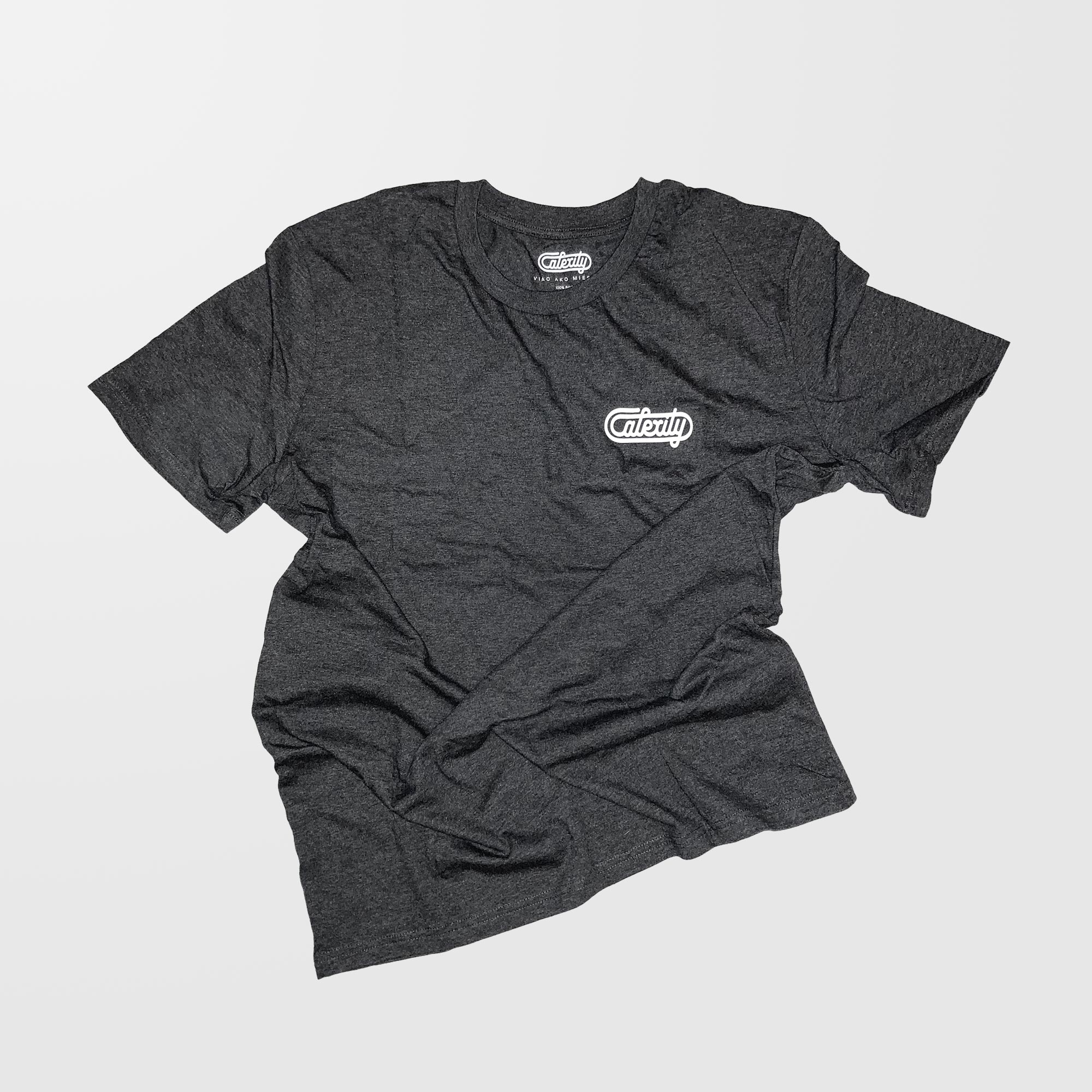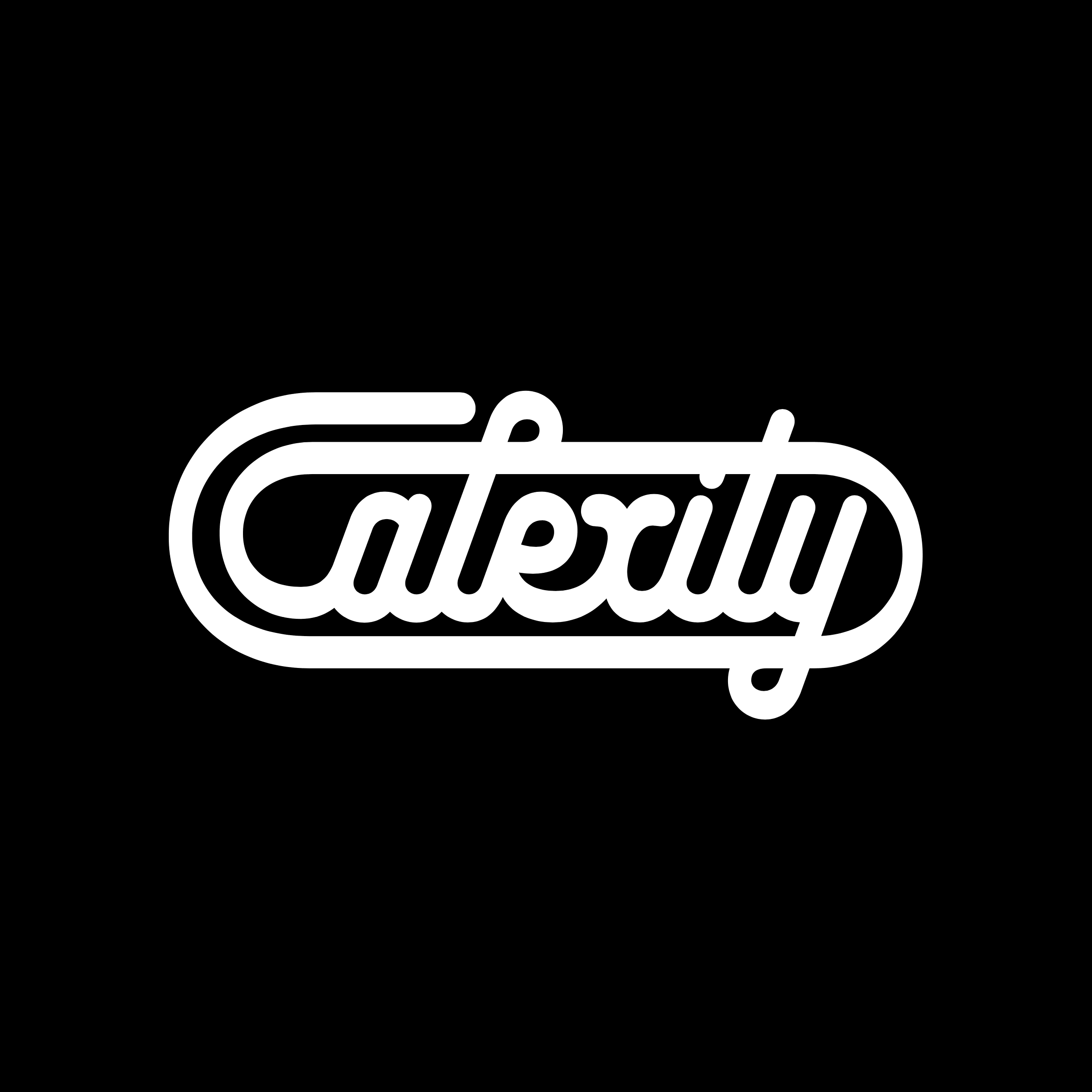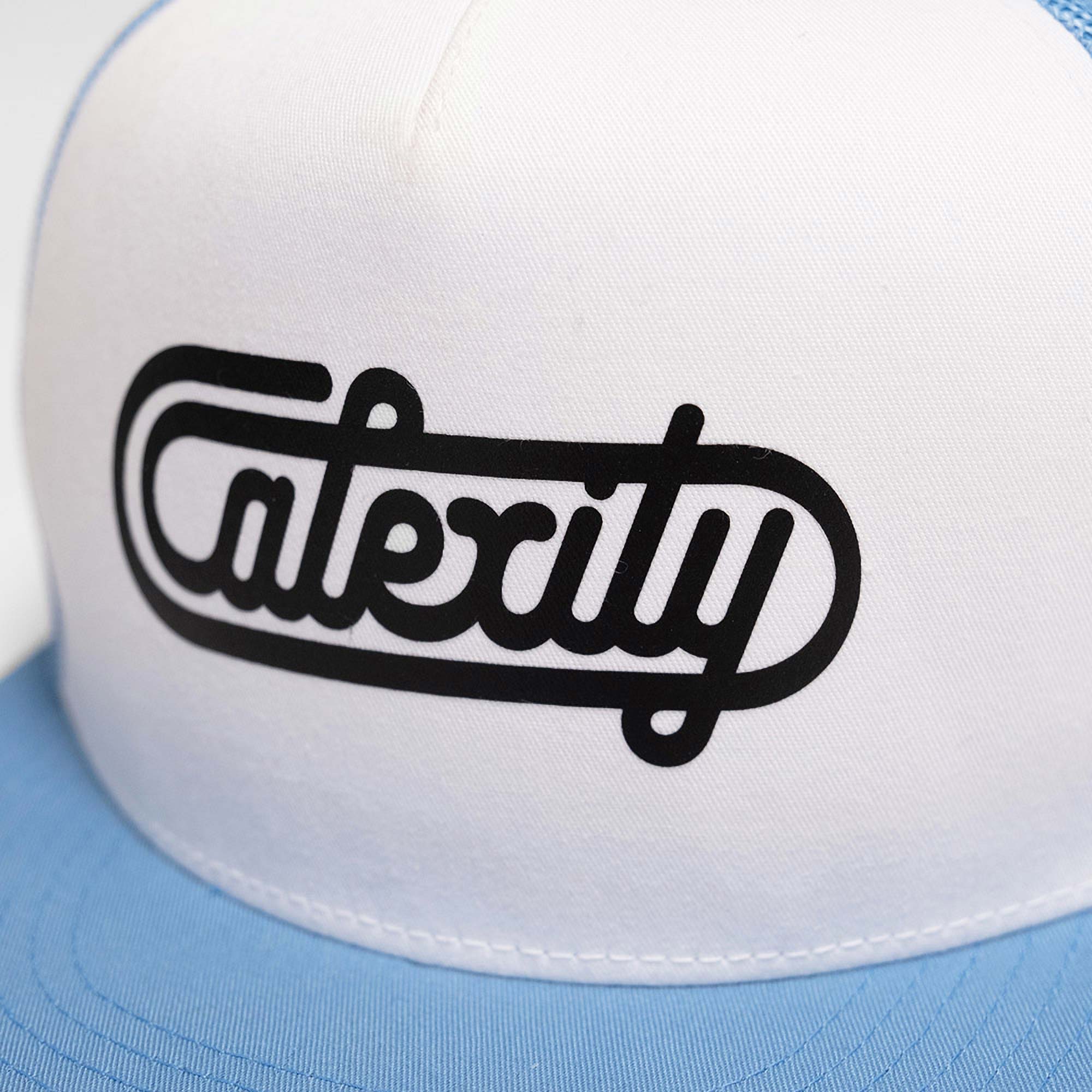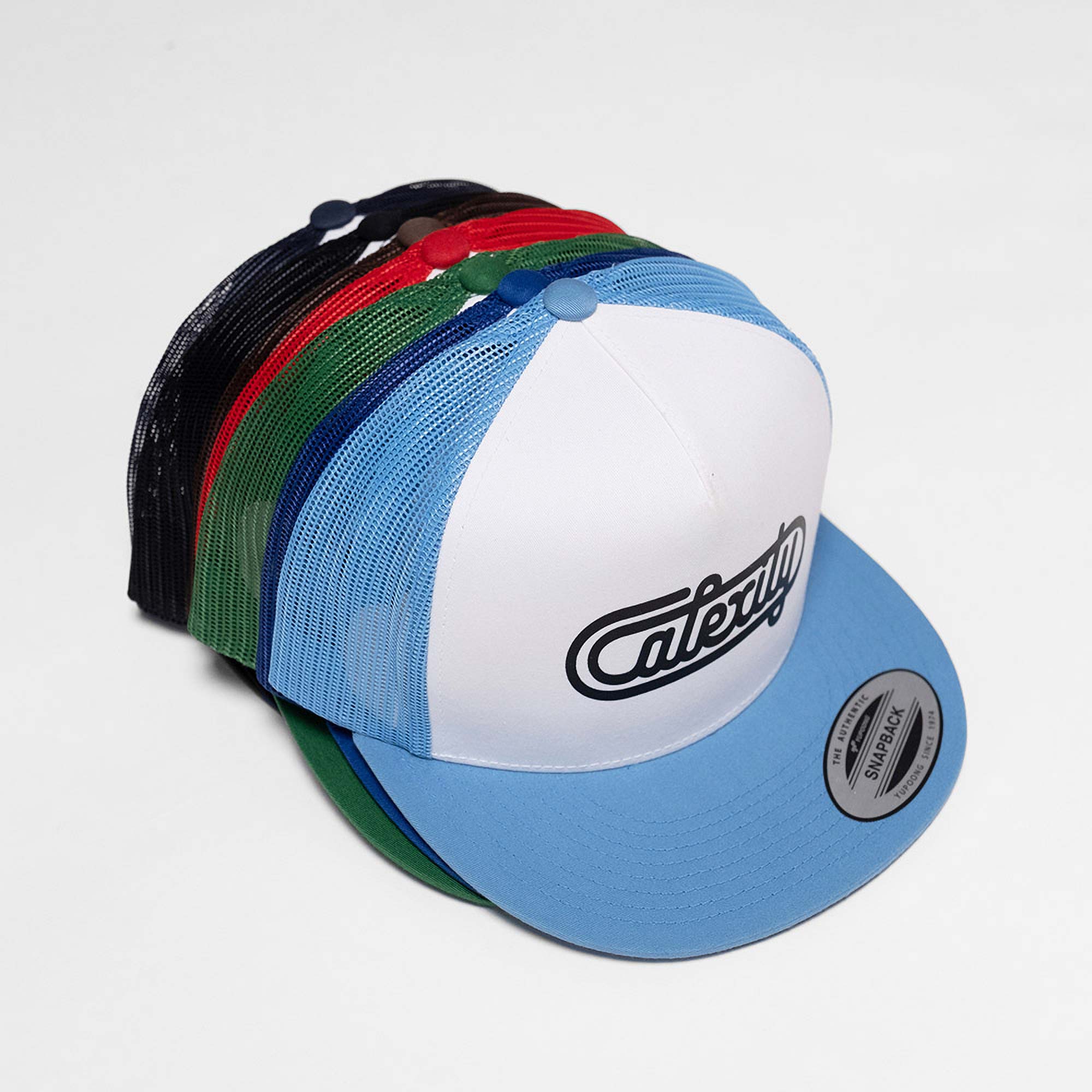
Calexity
A new interpretation of the iconic logo of the Slovak refrigerator manufacturer Calex from Zlaté Moravce for the Slovak rapper Vec.
The geometric calligraphic lettering is inspired by the cooling system of a refrigerator, has rounded stroke ends and inverse contrast. The letter x is constructed so that it can be interpreted as a ligature of the letters x and c.